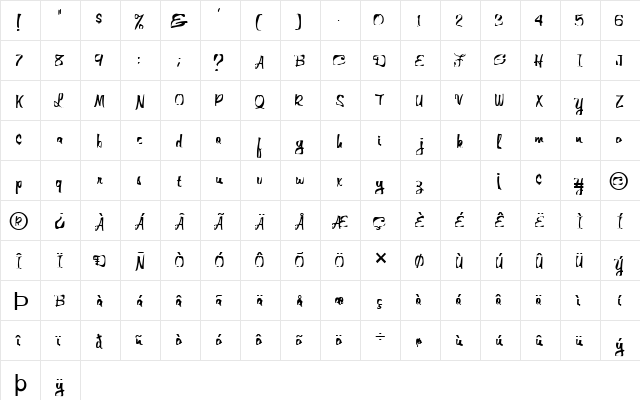
FZ WARPED 25 Normal
Design Context for FZ WARPED 25 Typeface
FZ WARPED 25 is a composed and adaptable typeface that performs quietly and consistently across a wide range of design contexts.